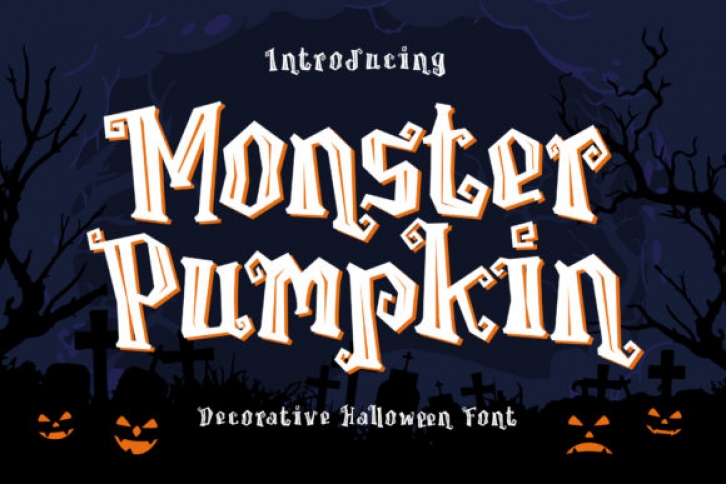
Monster Pumpkin is a display font created to complement each of your Halloween parties. Spooky and incredibly unique, this font will elevate each of your design to the highest level.